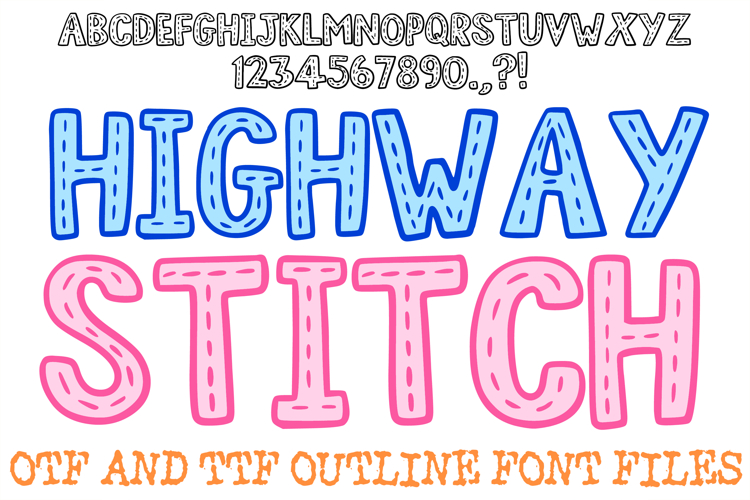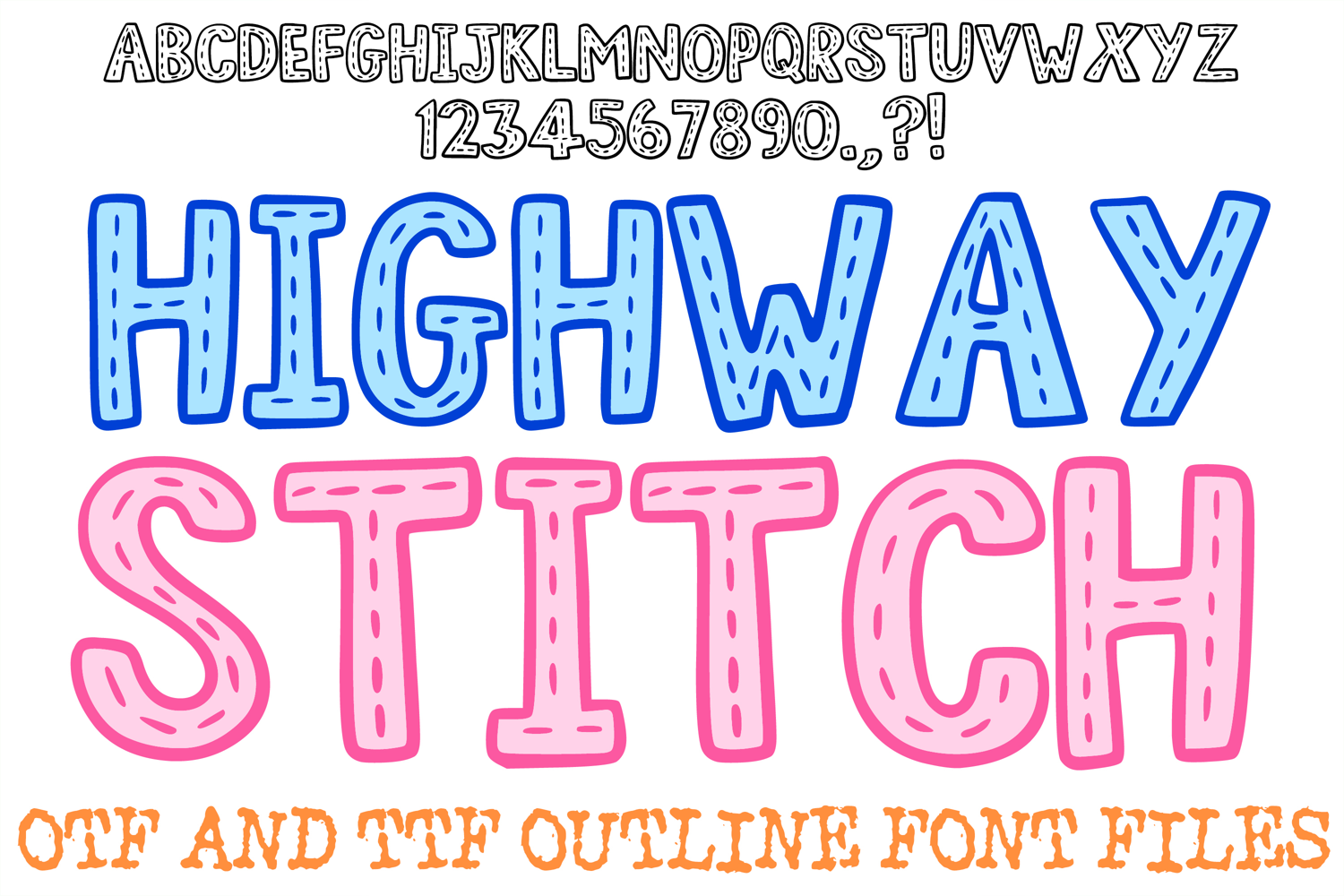
Highway Stitch Alphabet Lettering Font Sewing ABC OTF
Embrace the perfect mix of open-road adventure and cozy craftsmanship with the Highway Stitch Font. This delightfully charming display typeface features thick, friendly outlines with a single, perfectly centered dashed inline track. Capturing both the look of painted road markers guiding you on a long journey and the nostalgic texture of a classic sewing topstitch, this font delivers a warm, playful, and highly legible aesthetic for modern designs.
Delivered as an installable typeface, this clean outline structure offers incredible versatility. It serves as an excellent resource for a designer who wants to add bright solid color blocks behind the line art, apply drop shadows, or layer contrasting textures. The smooth, rounded linework scales seamlessly across all creative software, ensuring crisp results for digital media and physical print projects alike.
Custom Merchandise: Design cheerful text layouts for travel-themed t-shirts, kids' clothing, canvas tote bags, and summer adventure hoodies.
Die-Cut Stickers: Create bold, playful vinyl decals for camper vans, water bottles, travel journals, and phone cases.
Theme Stationery: Perfect for road trip scrapbooking layouts, camp-themed birthday invitations, outdoor festival flyers, or artisan greeting cards.
Artisan Branding: Elevate logos, business cards, and social media packaging for handmade craft shops, family travel blogs, or local apparel brands.